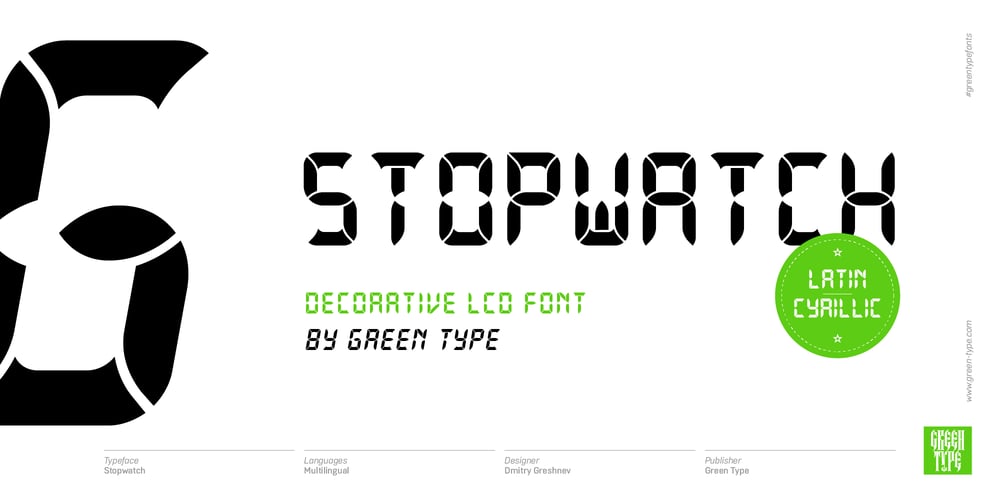
Stopwatch
Stopwatch font
Stopwatch Font Family was designed by Dmitry Greshnev and published by Green Type. Stopwatch contains 2 styles and family package options. Stopwatch is an LCD display font. Stopwatch Font Family was designed by Dmitry Greshnev and published by Green Type. Stopwatch contains 2 styles and family package options.